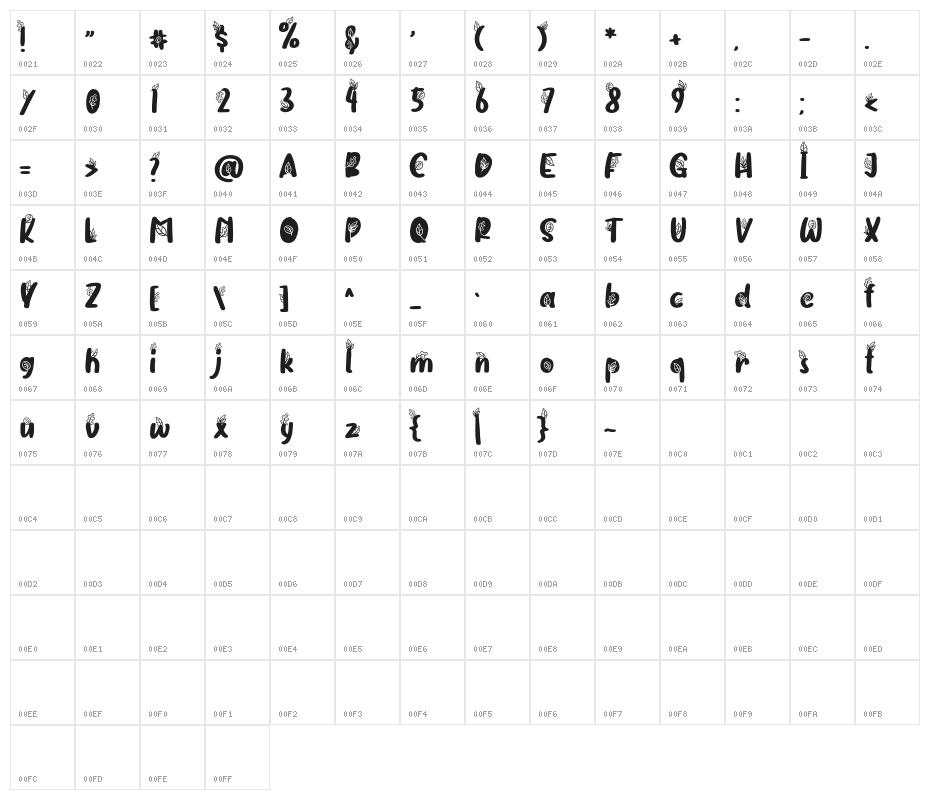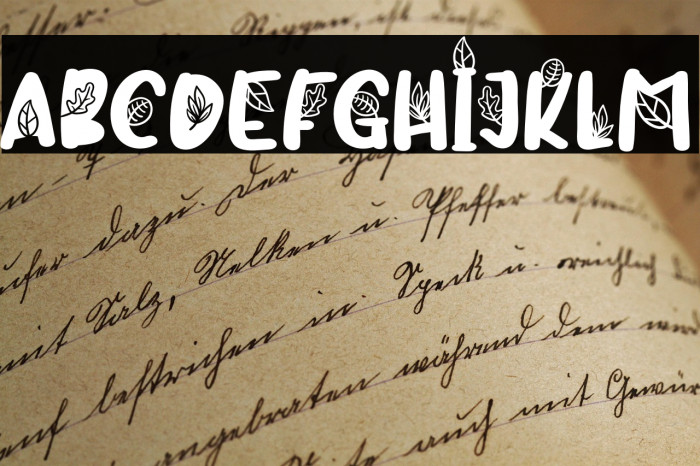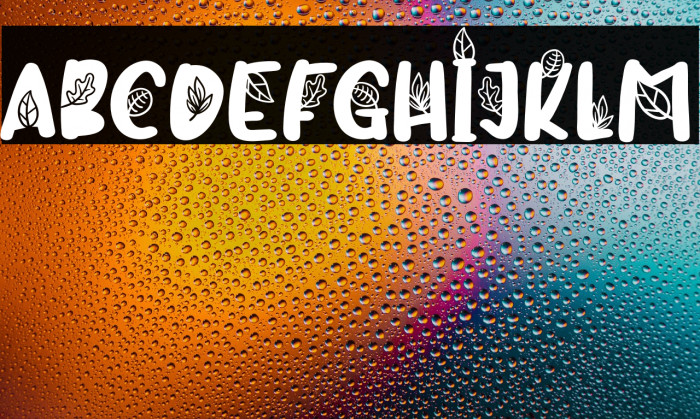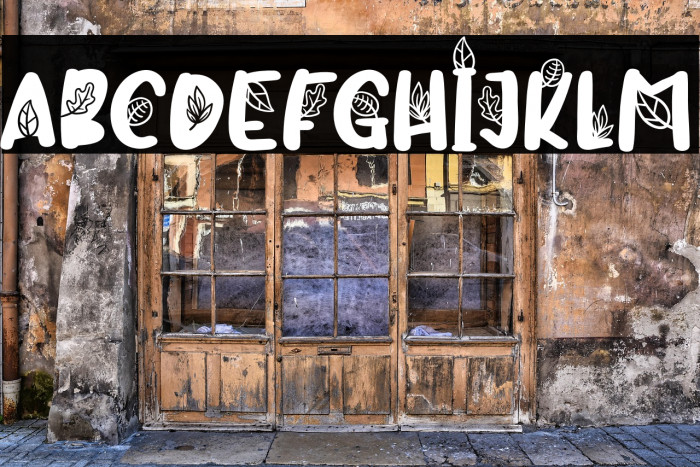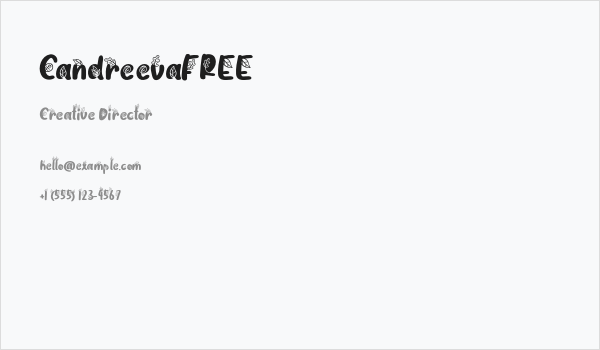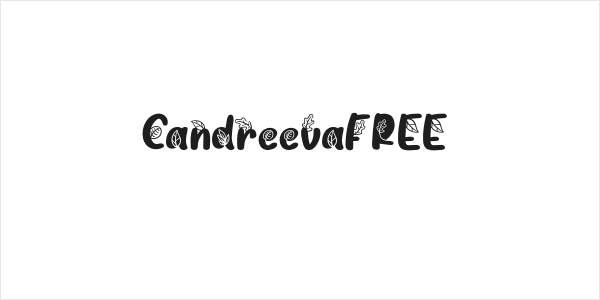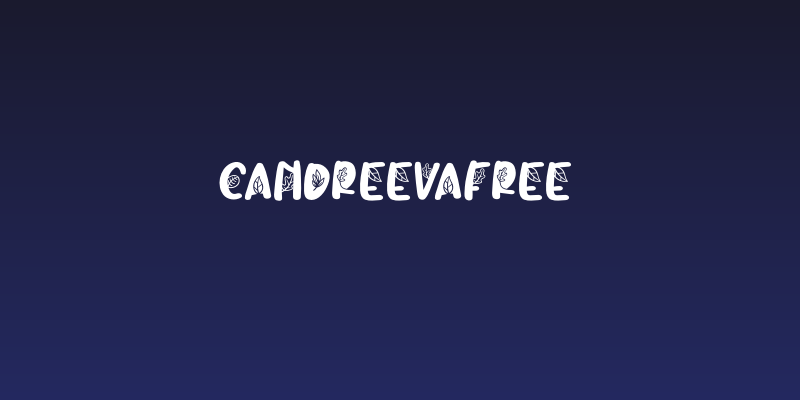
CandreevaFREE Font
CandreevaFREE Description
This playful and decorative font features bold, rounded characters adorned with leaf motifs, giving it a whimsical and organic feel. The letters are thick and substantial, with a consistent weight that makes them stand out. Each character is uniquely embellished with leaves, adding a touch of nature-inspired charm. The font maintains a consistent style across uppercase, lowercase, numbers, and special characters, ensuring a cohesive look. Its bold and decorative nature makes it ideal for projects that require a fun and lively aesthetic.
| Proposed Projects | Perfect for eco-friendly branding, children's book covers, nature-themed event posters, and playful packaging designs. |